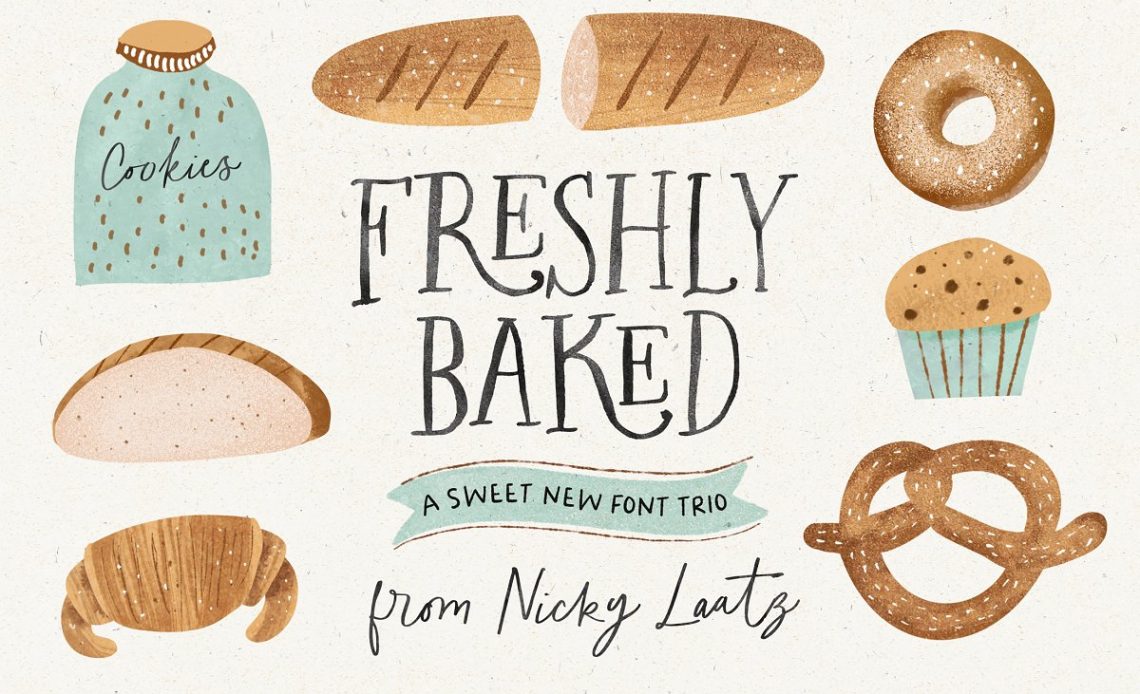
Introducing the Freshly Baked Font Trio & Dings, a delightful collection of handwritten fonts created by the talented Nicky Laatz. This font family includes three unique fonts and a charming dingbat ornament font that will add a touch of whimsy to your design projects.
One of the standout features of this font trio is the wonderful selection of Opentype Ligatures that are available. These ligatures are specially designed to fit with each other in a pretty way, creating a beautiful and cohesive look in your design work.
The Freshly Baked Font Trio is perfect for a variety of design projects, from adding a personal touch to your Greetings and Children's Books to creating delightful packaging, labels, logos, and more.